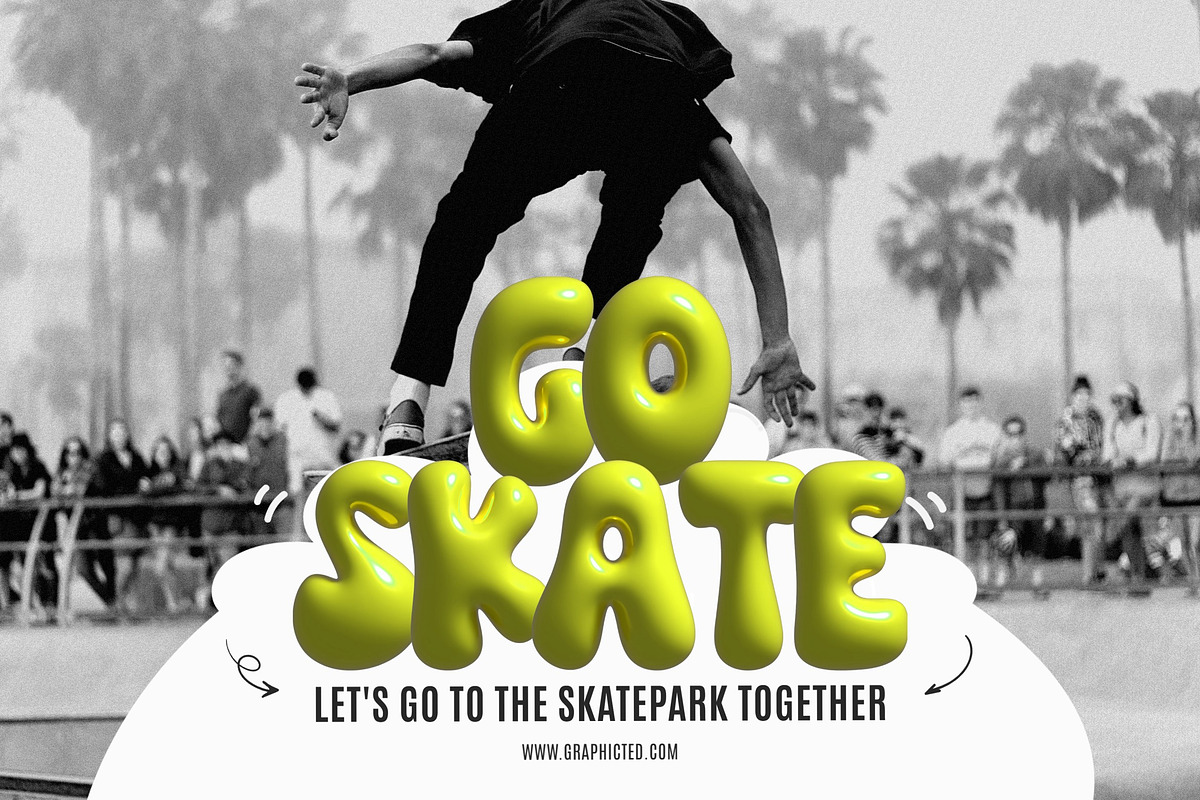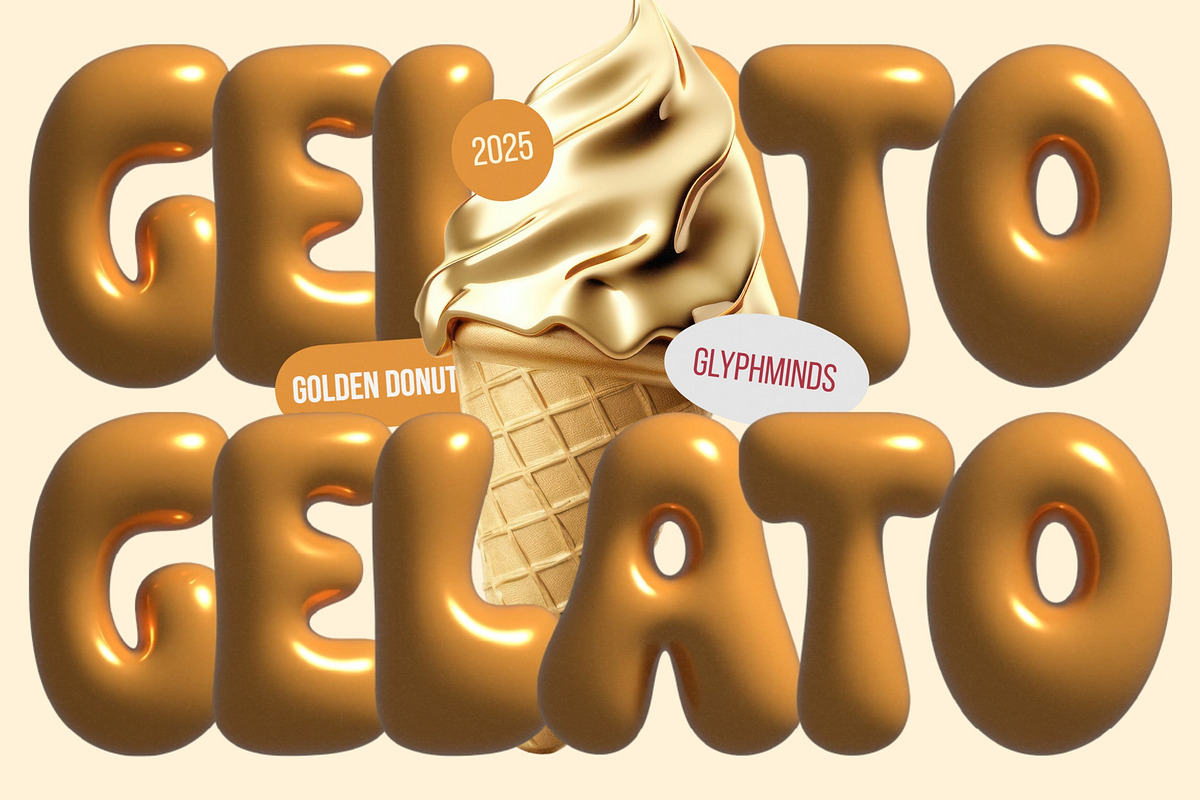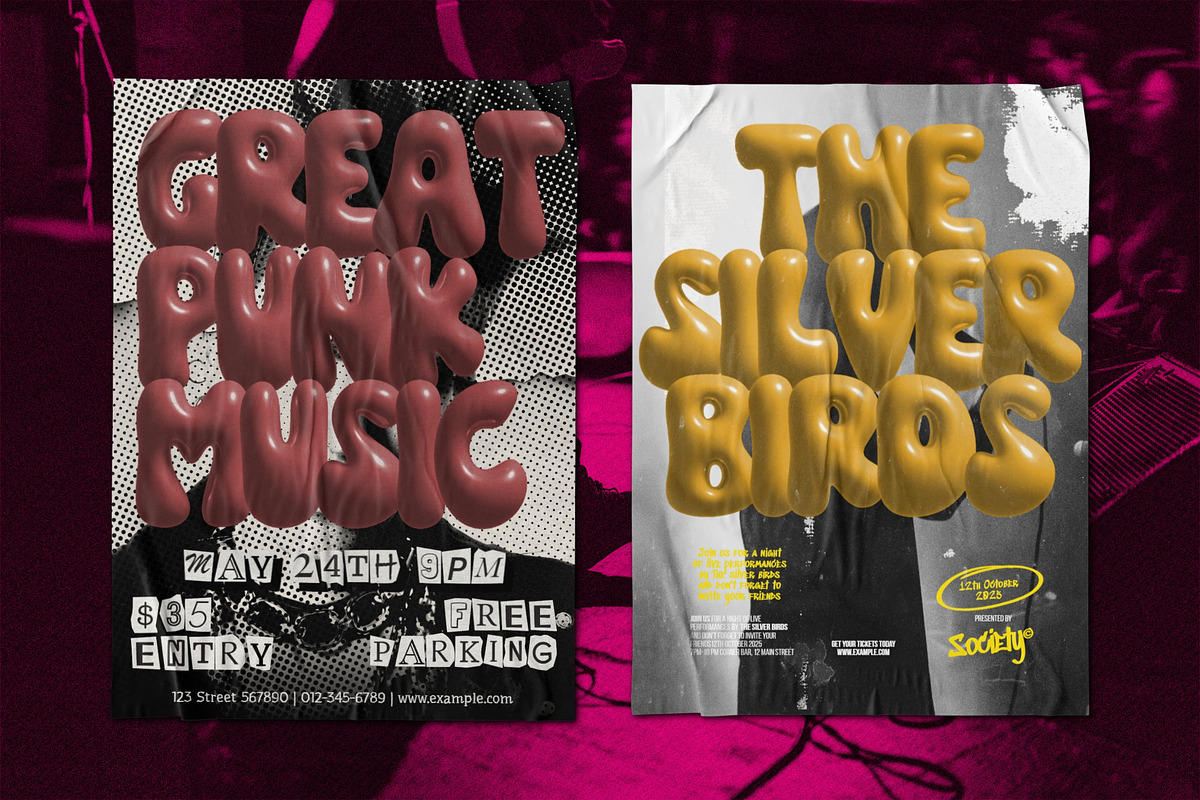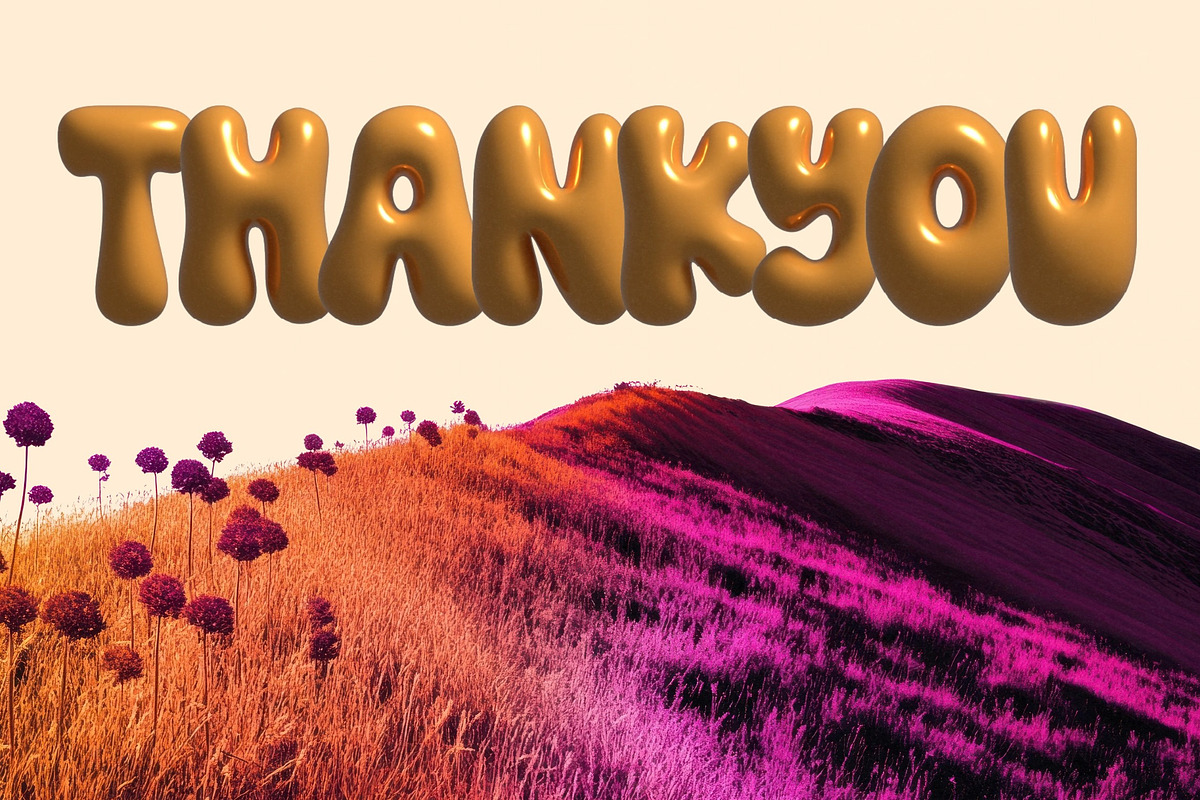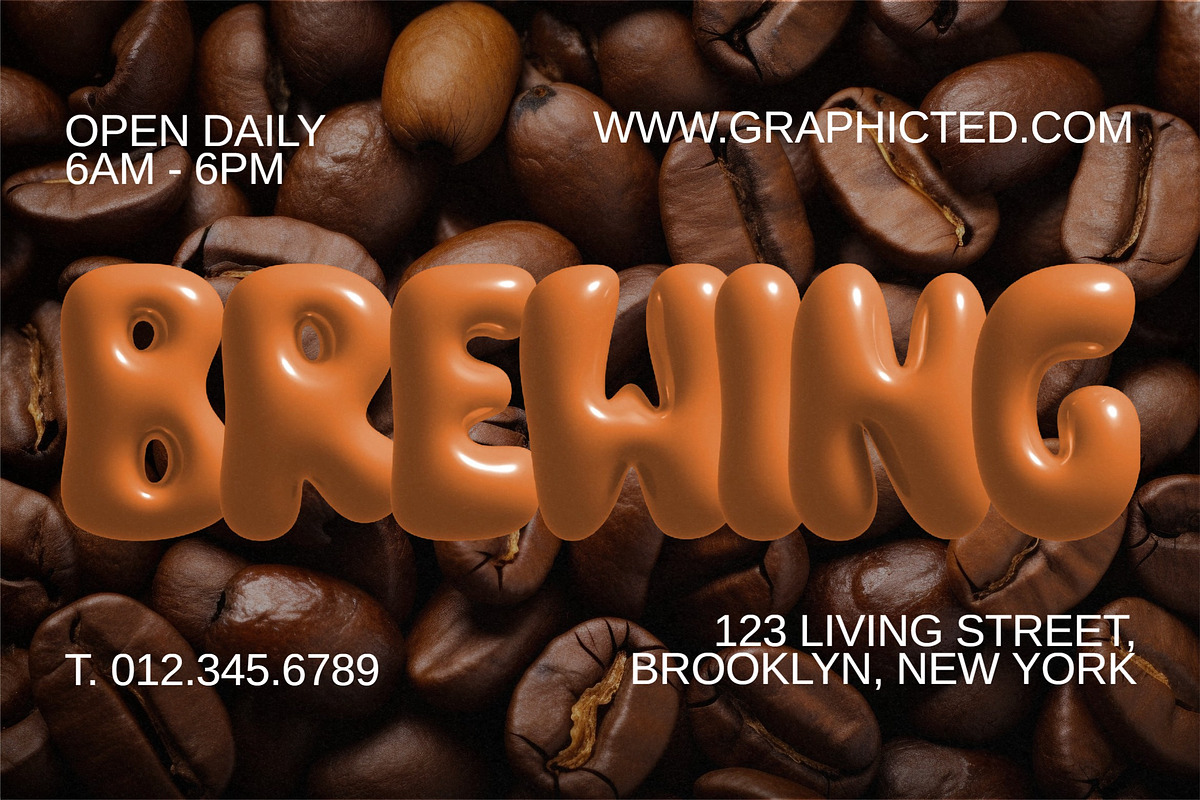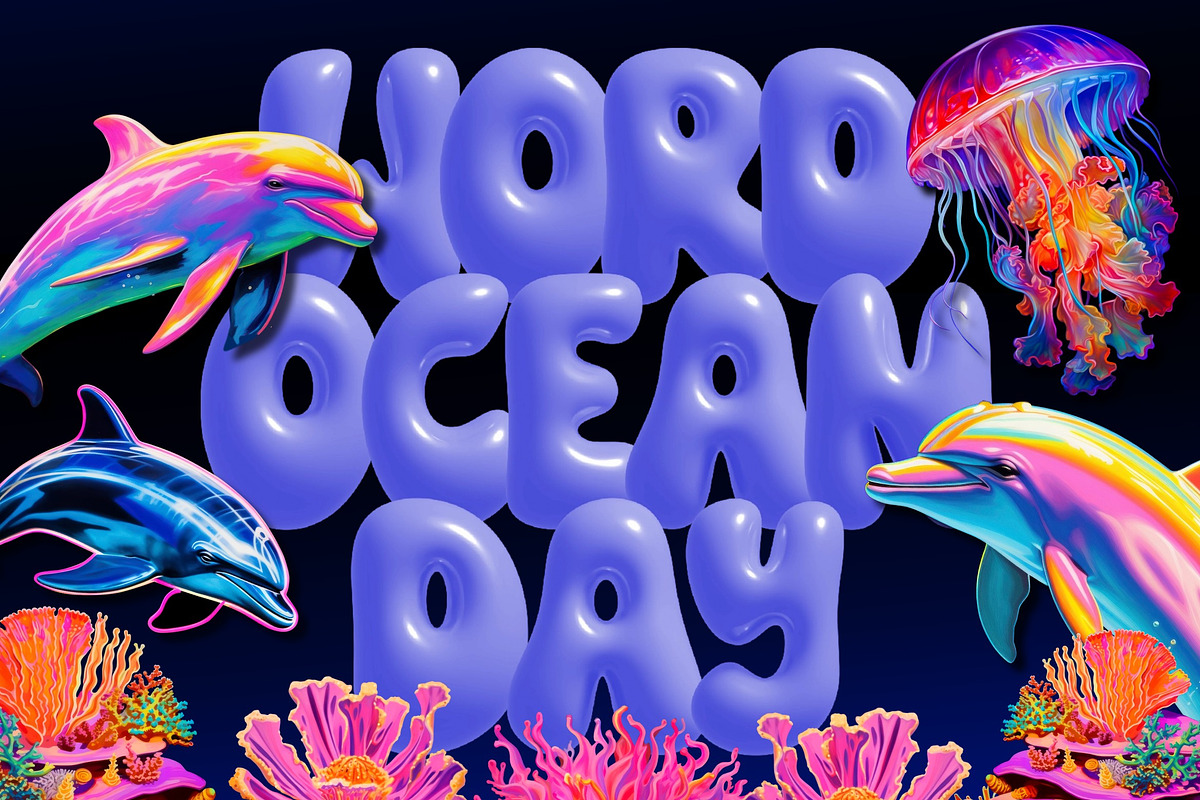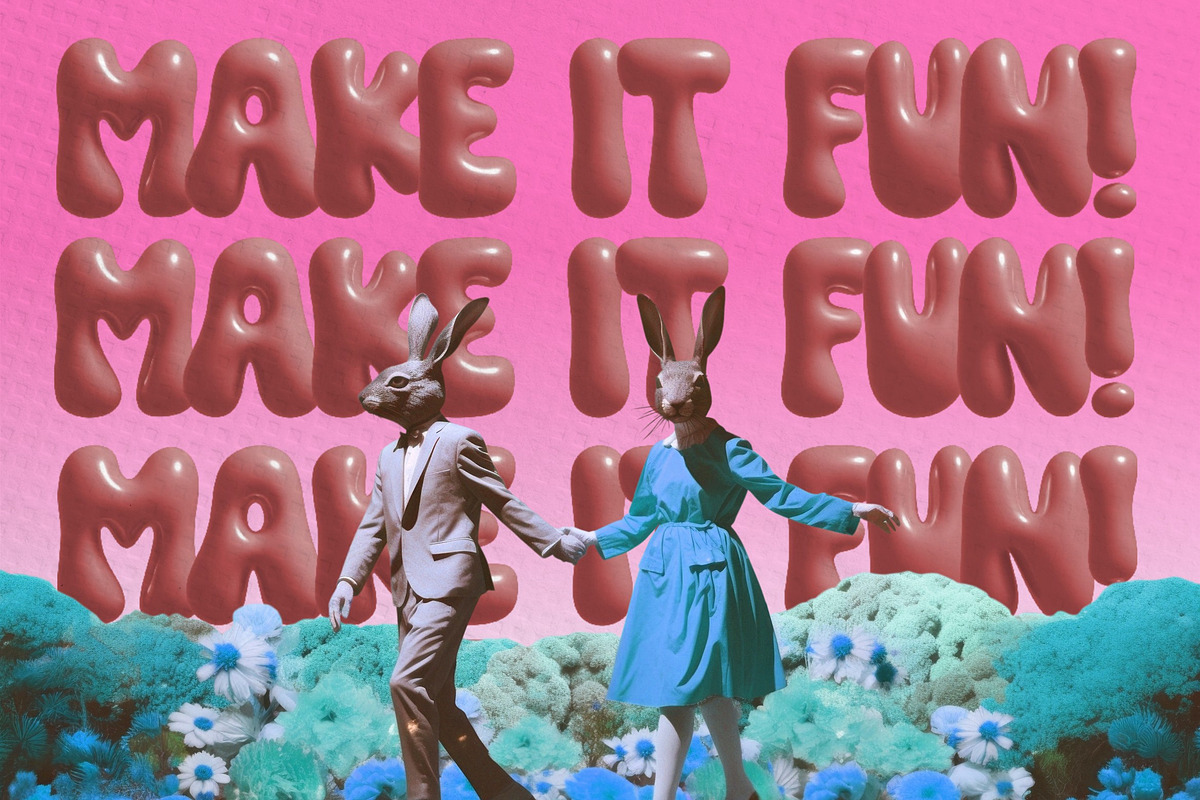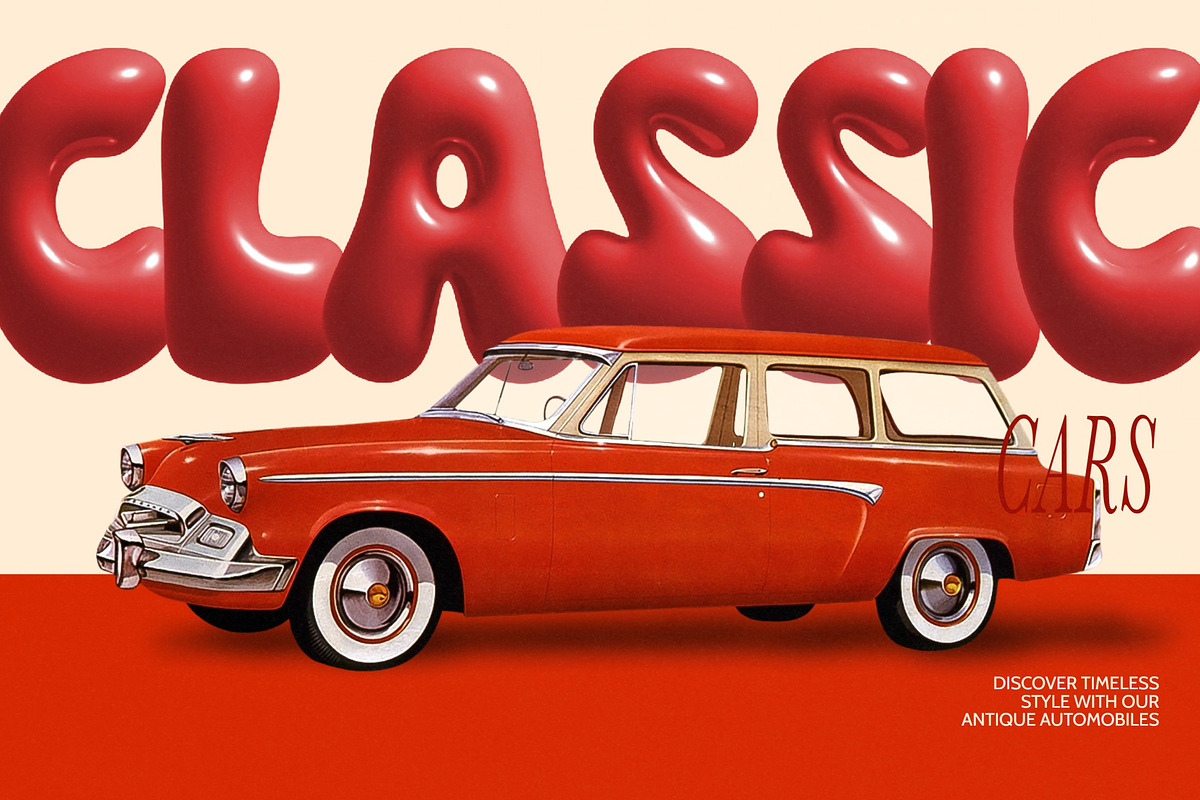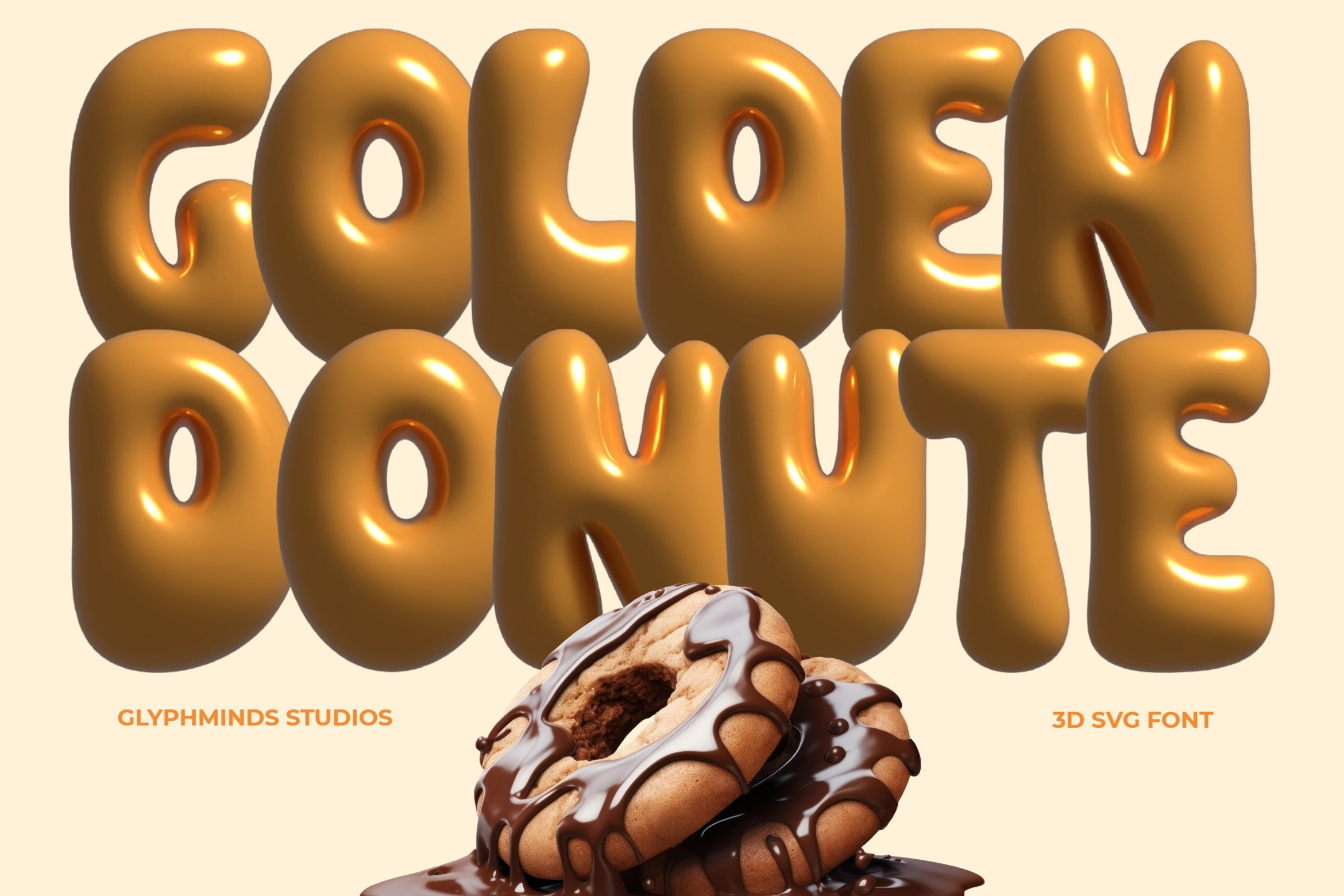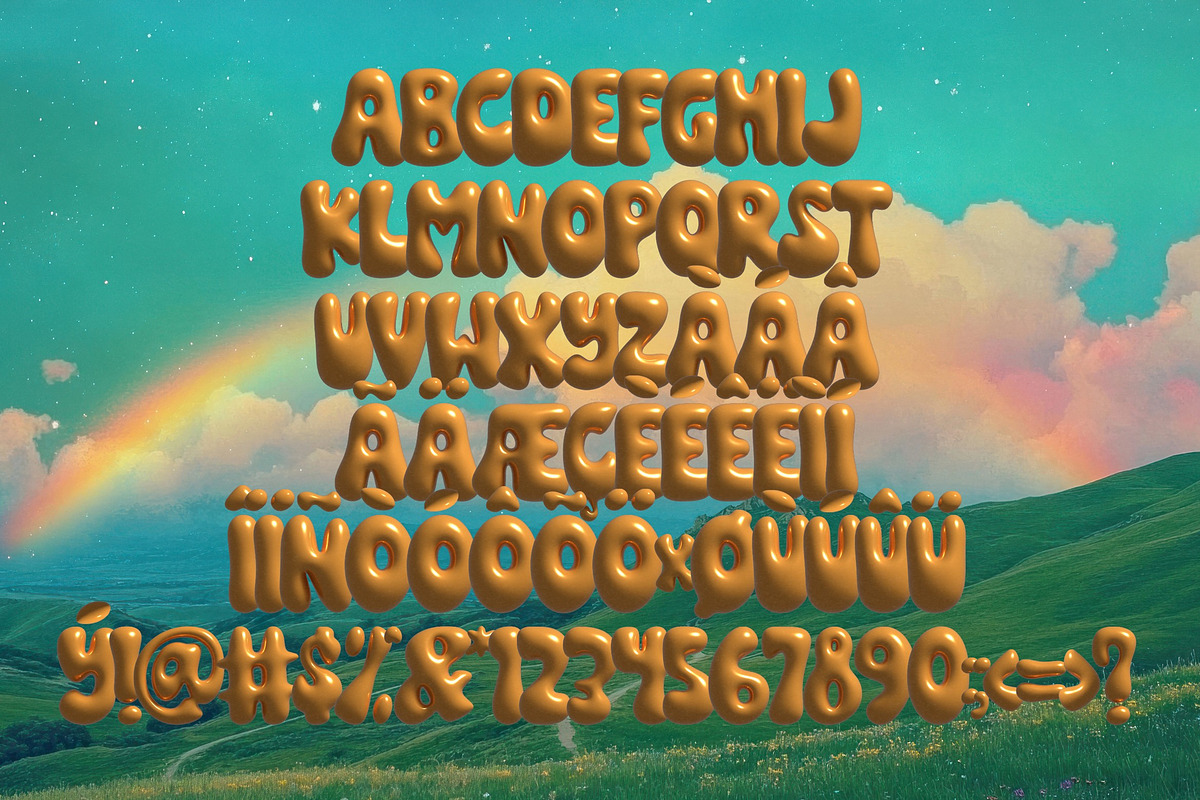
Golden Donut - 3D SVG Font
Elevate your designs with the Golden Donut 3D SVG Font—a playful, glossy, and eye-catching typography style that adds a delicious charm to your projects. Perfect for branding, posters, social media, packaging, or any creative venture that needs a bold, fun, and premium touch. With its donut-inspired shine and high-quality 3D detail, this font guarantees to captivate and leave a lasting impression on your audience. Download now and sweeten up your designs!